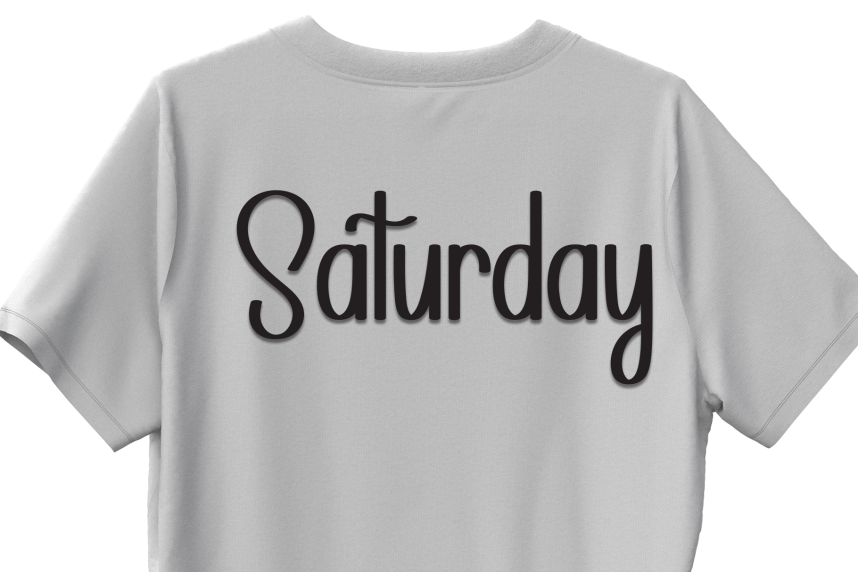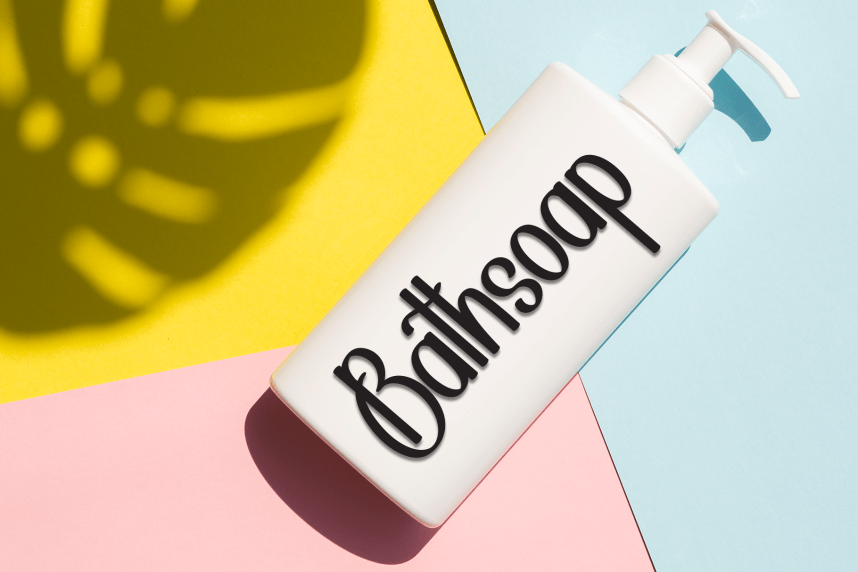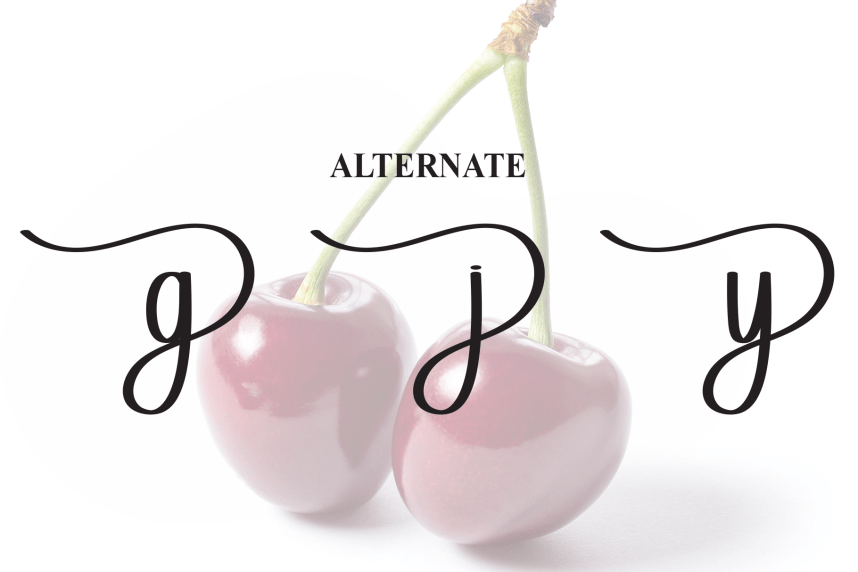
Cherry Simple Handmade Font
Cherry Simple Handmade Font is a sweet and friendly handwritten display font. Cute and fun, this font is ideal for writing wedding invitations, cards, or any other design that might need a playful touch!